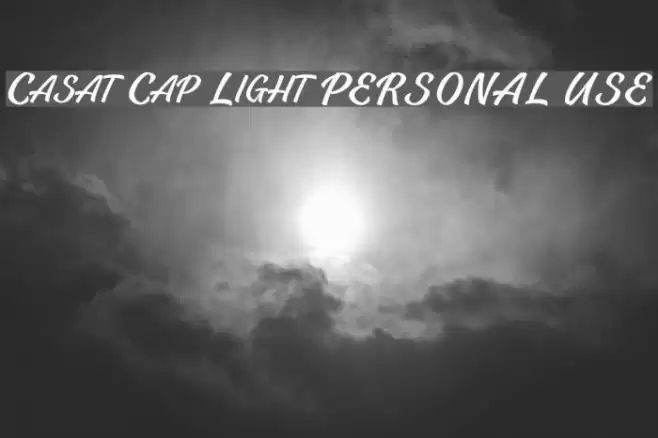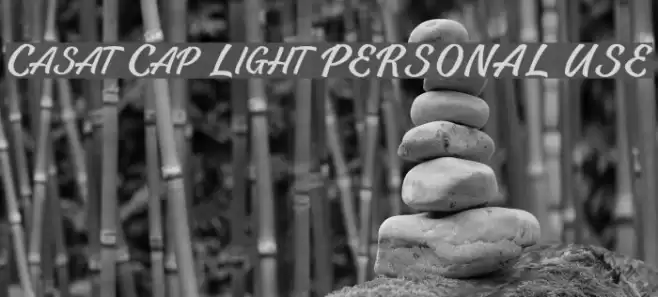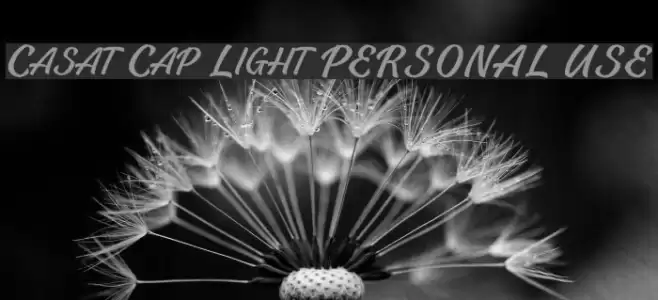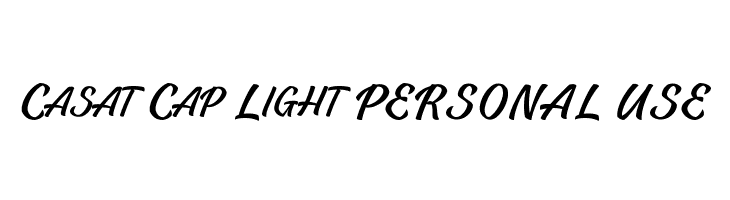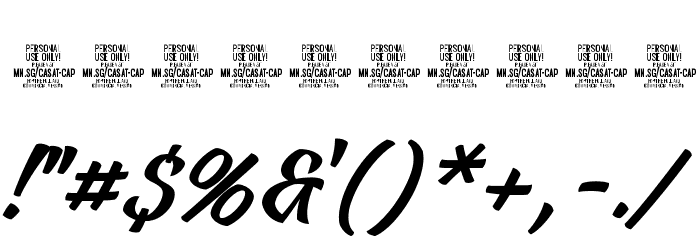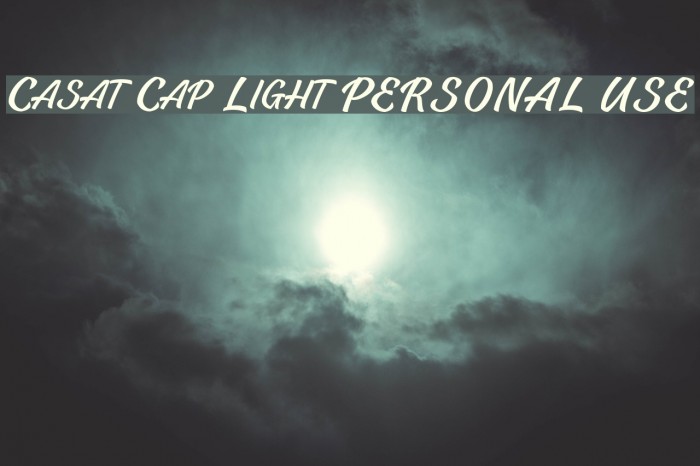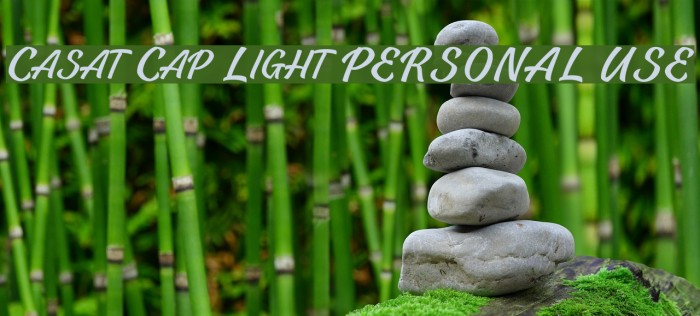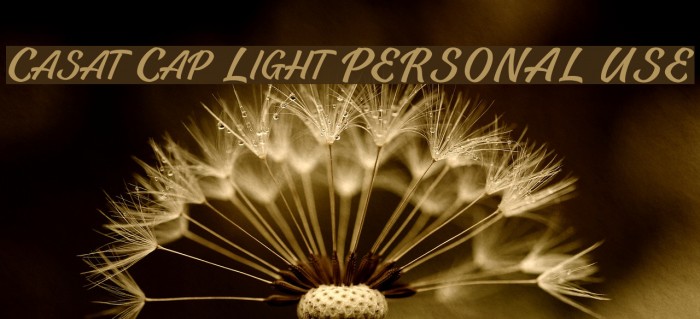
Casat Cap Light PERSONAL USE Font
Casat Cap Light PERSONAL USE Description
This font features a dynamic and flowing script style, characterized by its elegant and slightly slanted letterforms. The uppercase letters exhibit a sense of movement and fluidity, making them ideal for creating a sense of sophistication and flair. The lowercase letters maintain a consistent style, complementing the uppercase with their smooth curves and connected strokes. The numerals and special characters are designed to match the overall aesthetic, ensuring a cohesive look across all text elements. The font's design is both expressive and versatile, suitable for a variety of creative applications.
A dynamic script font with elegant, flowing letterforms and a sophisticated style from Uncategorized fonts.
- Proposed Projects: Ideal for wedding invitations, branding projects, greeting cards, and elegant packaging designs.
- Overall Style: Elegant
- Use Case: Logos, Invitations, Branding